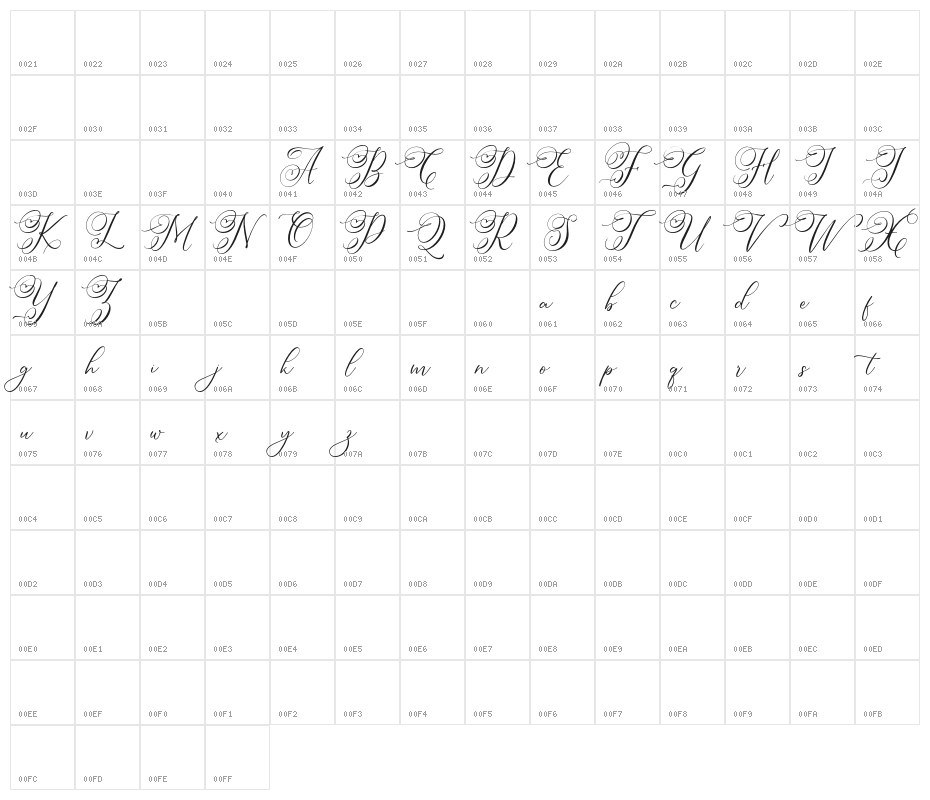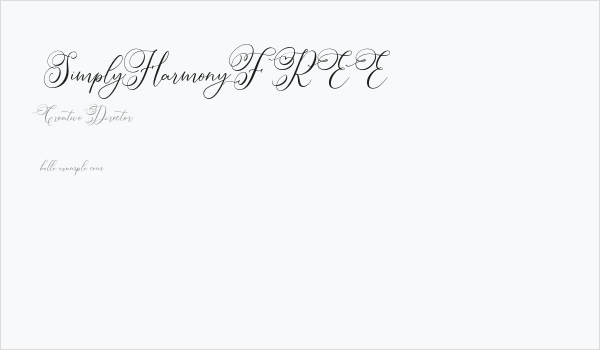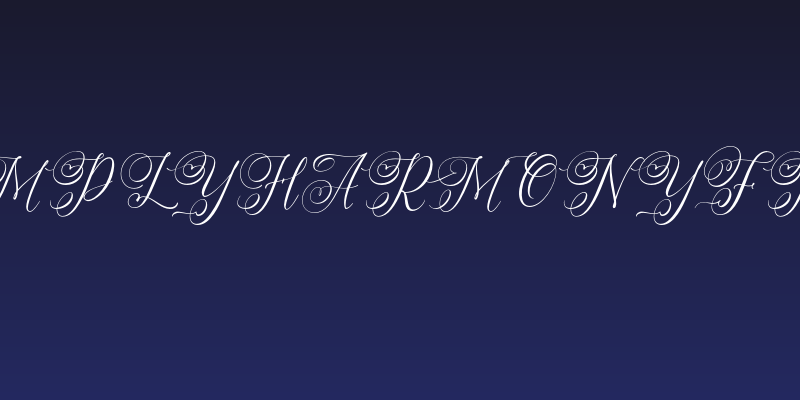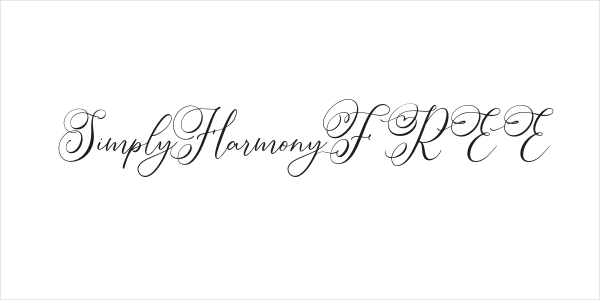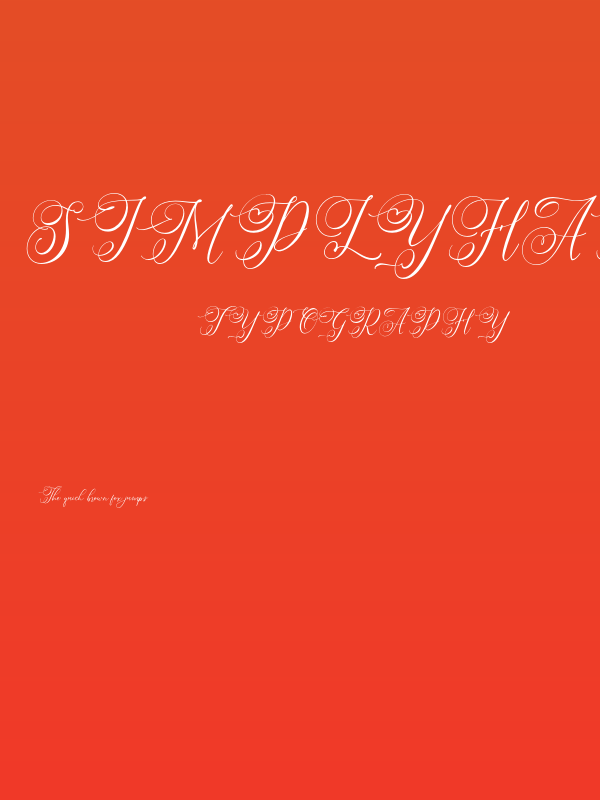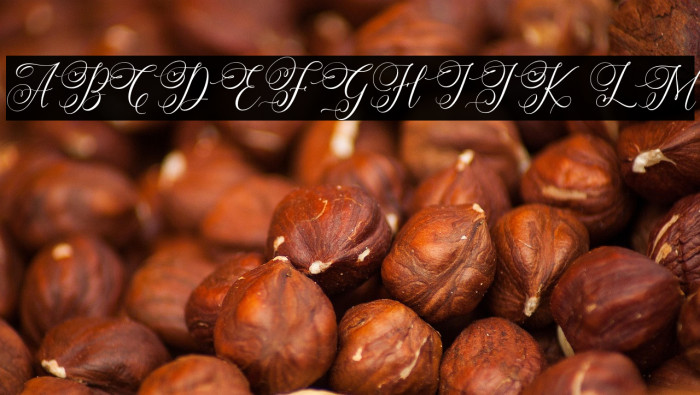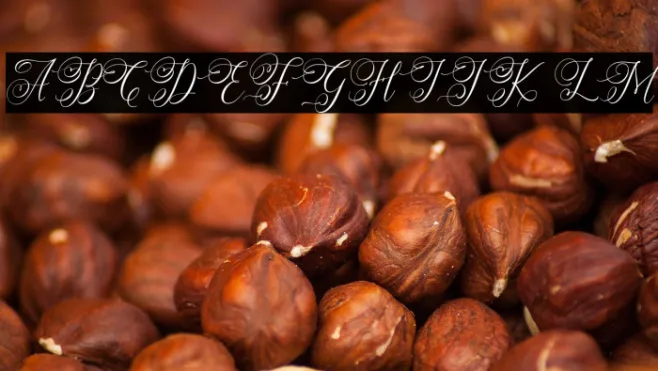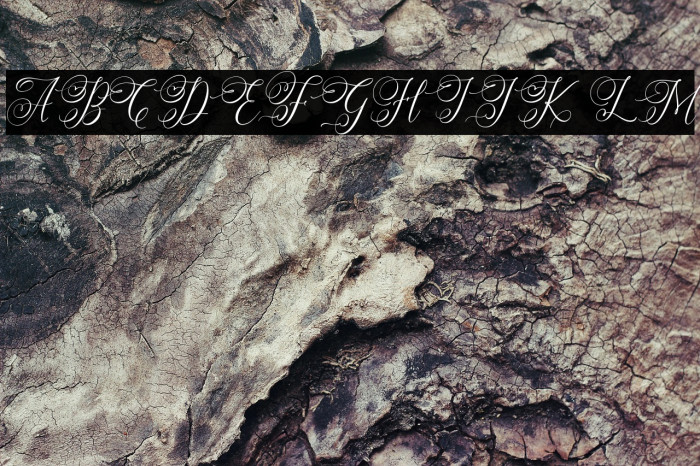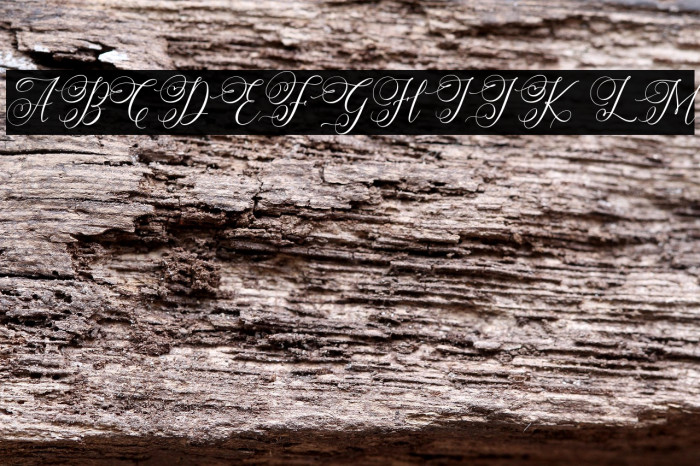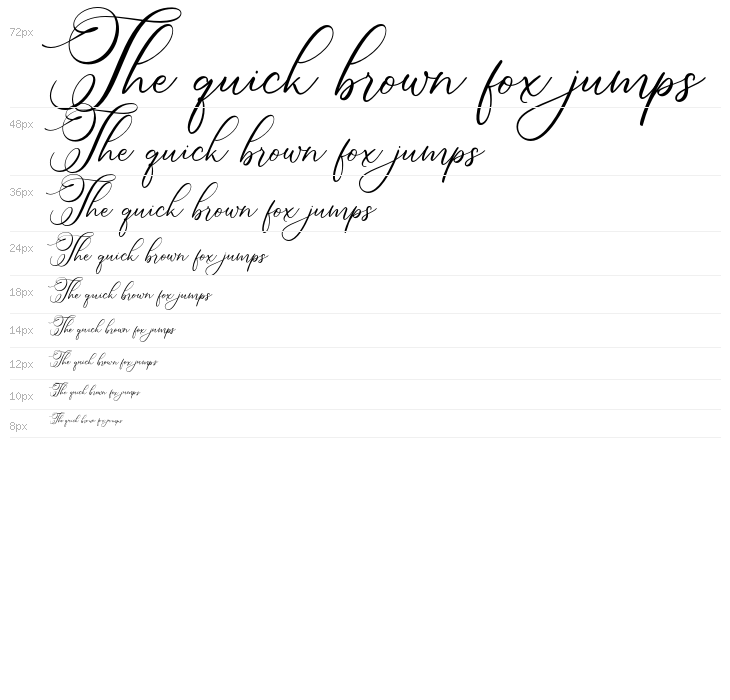
SimplyHarmonyFREE Font
SimplyHarmonyFREE Description
This elegant script font features intricate, flowing lines and delicate curves, creating a sense of sophistication and grace. The uppercase letters are adorned with elaborate swirls and flourishes, adding a decorative touch that enhances the overall aesthetic. The lowercase letters maintain a smooth, connected style, emphasizing fluidity and continuity. This font is perfect for projects that require a touch of elegance and refinement, such as wedding invitations, formal event programs, or luxury branding. Its artistic flair makes it suitable for creative designs that aim to convey a sense of beauty and elegance.
| Proposed Projects | Ideal for wedding invitations, luxury branding, formal event programs, and artistic designs. |